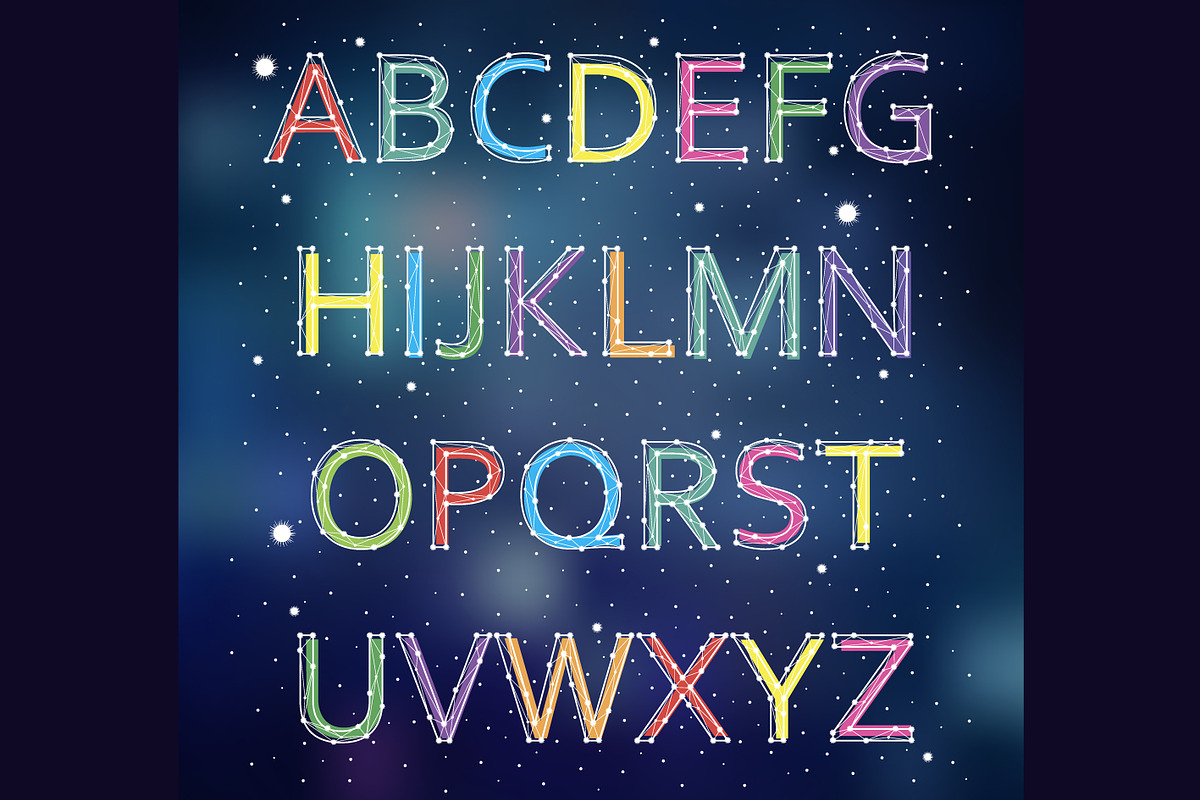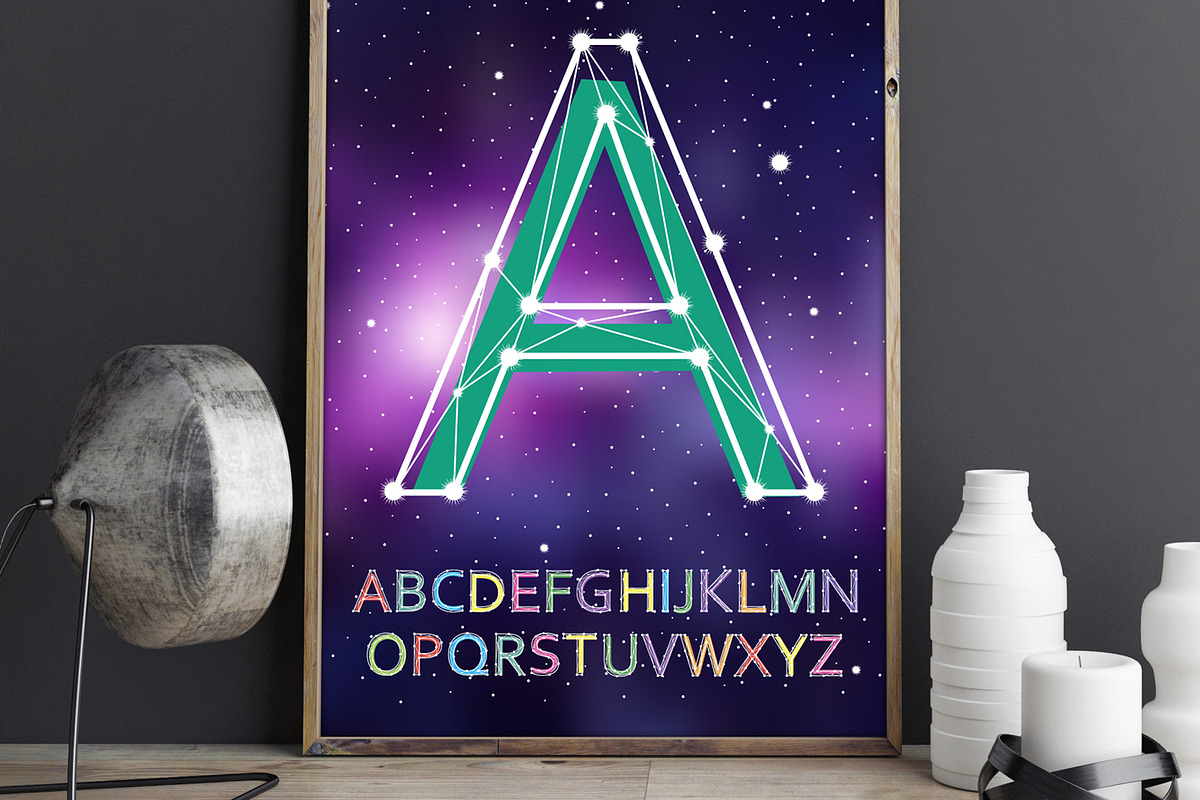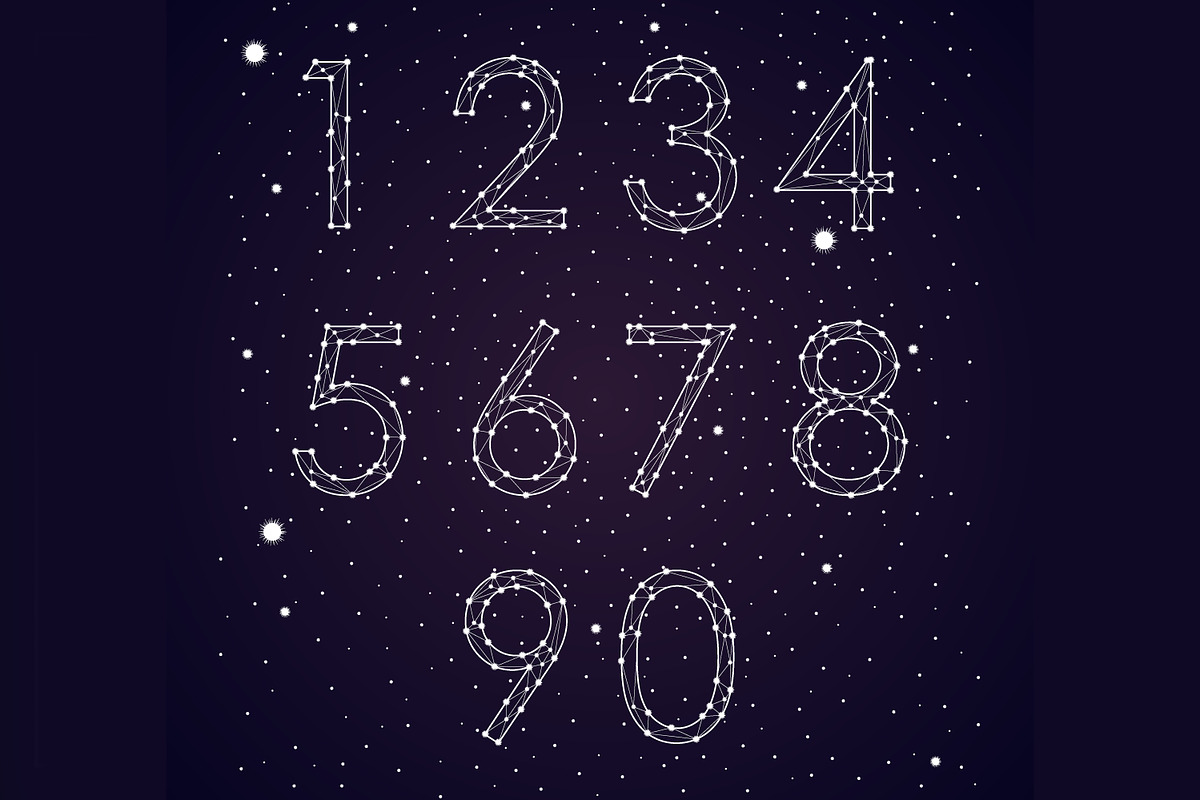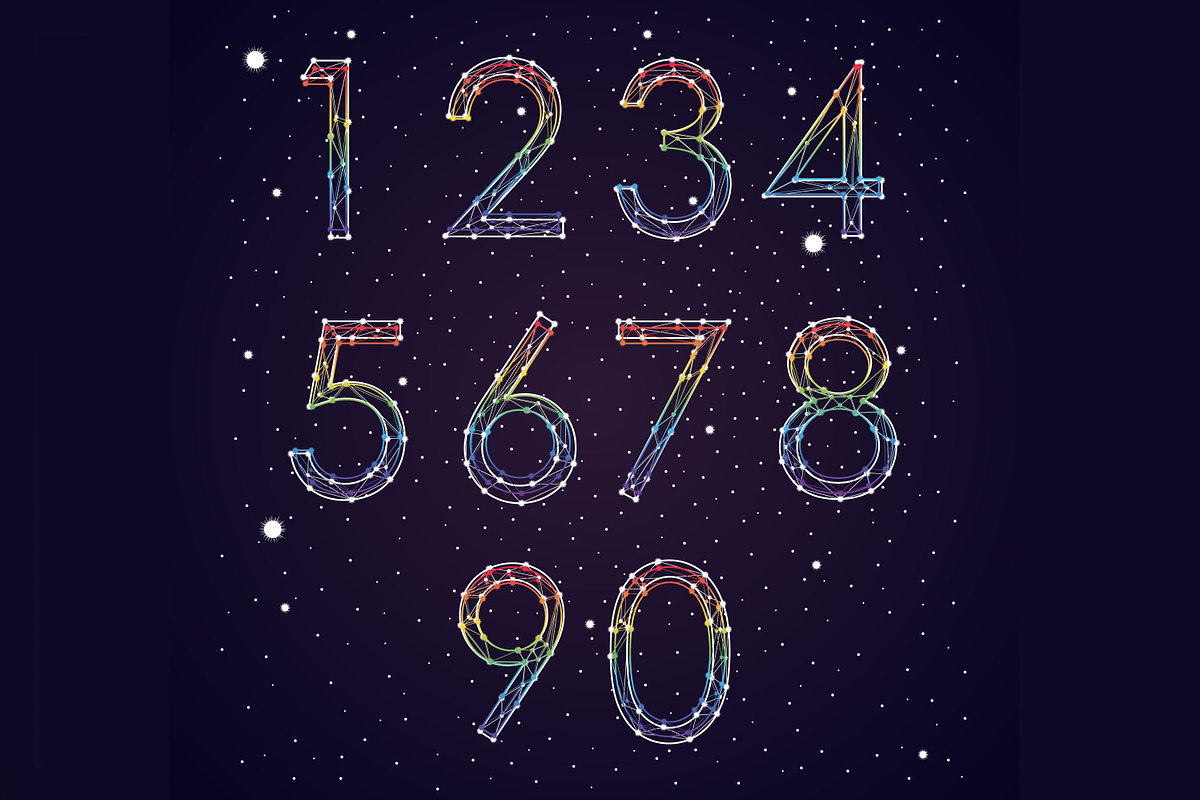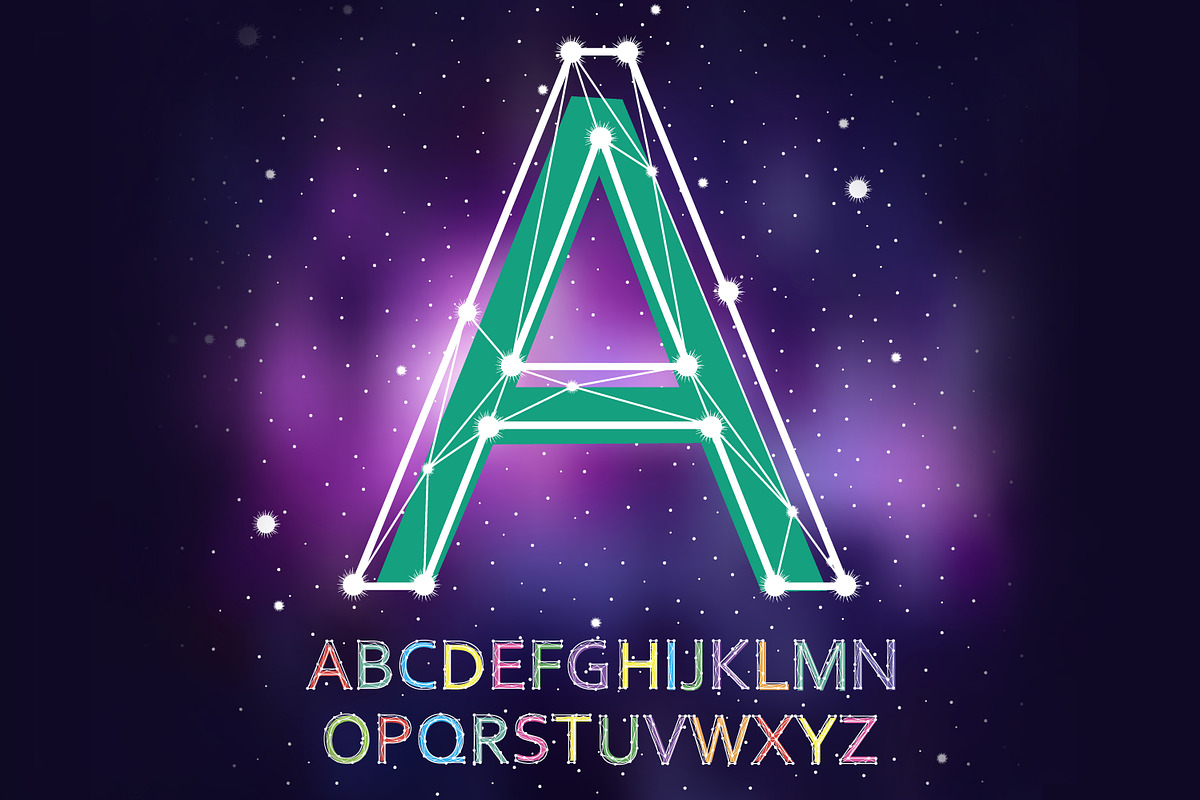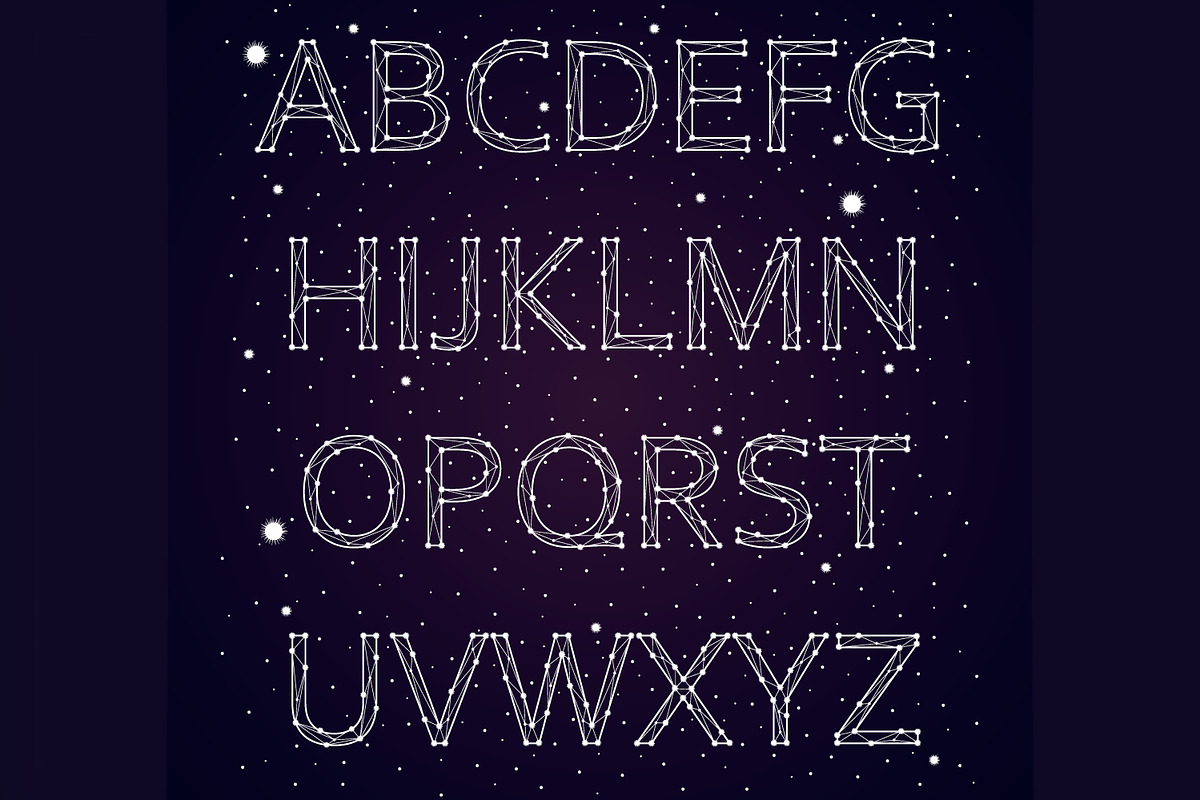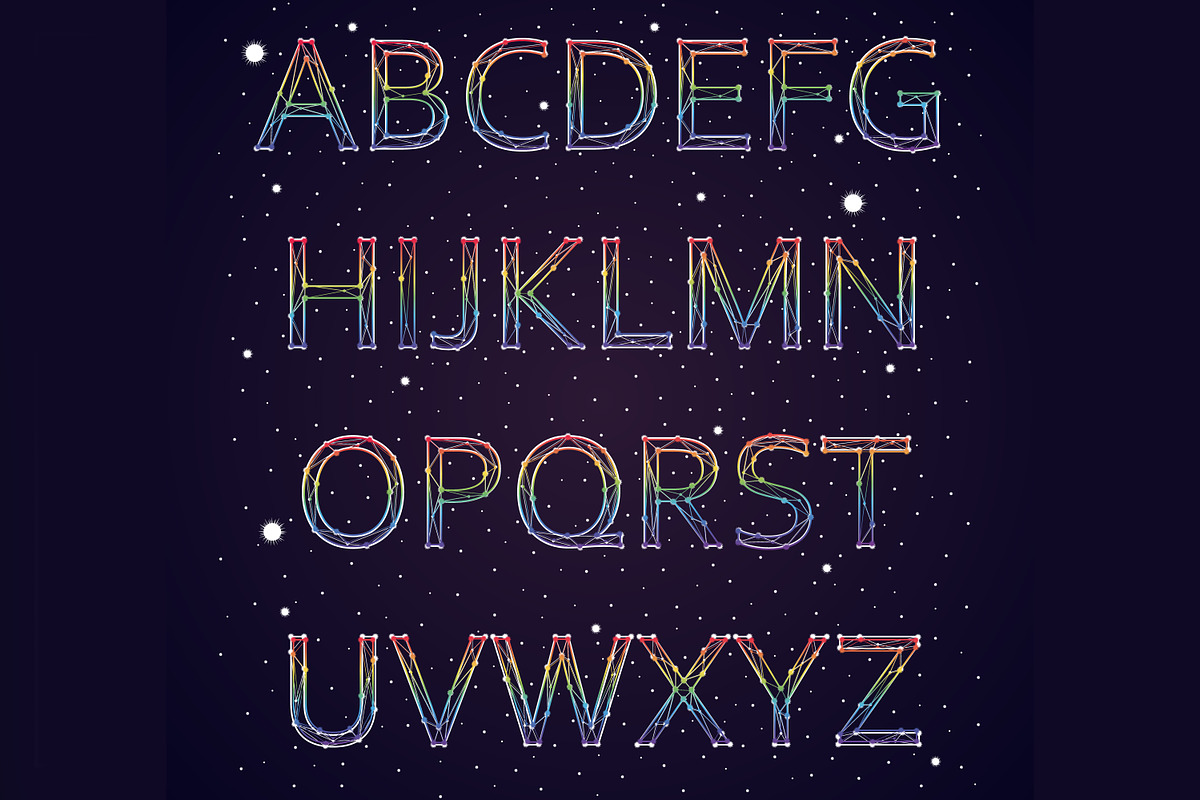
Font constellation vector
The color is fully consistent as shown in the picture
Font constellation vector by Chikovnaya fits naturally into Branding, posters, packaging, typography.